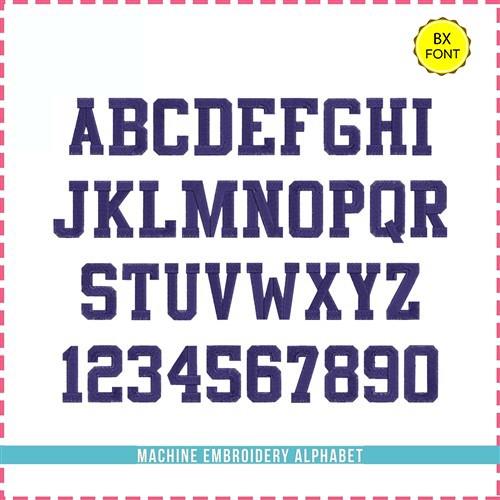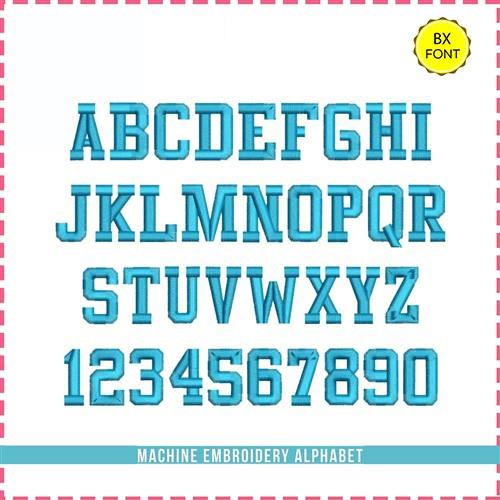
Maya Kreations is happy to present Athletic Font machine embroidery font which has This bold varsity style machine embroidery font features thick, block letters in red and blue, perfect for athletic jackets and caps. Available in BX font and Embrilliance formats, it offers 15 sizes for versatile projects. included. If you would like to view more embroidery fonts and alphabets please search our embroidery fonts page.